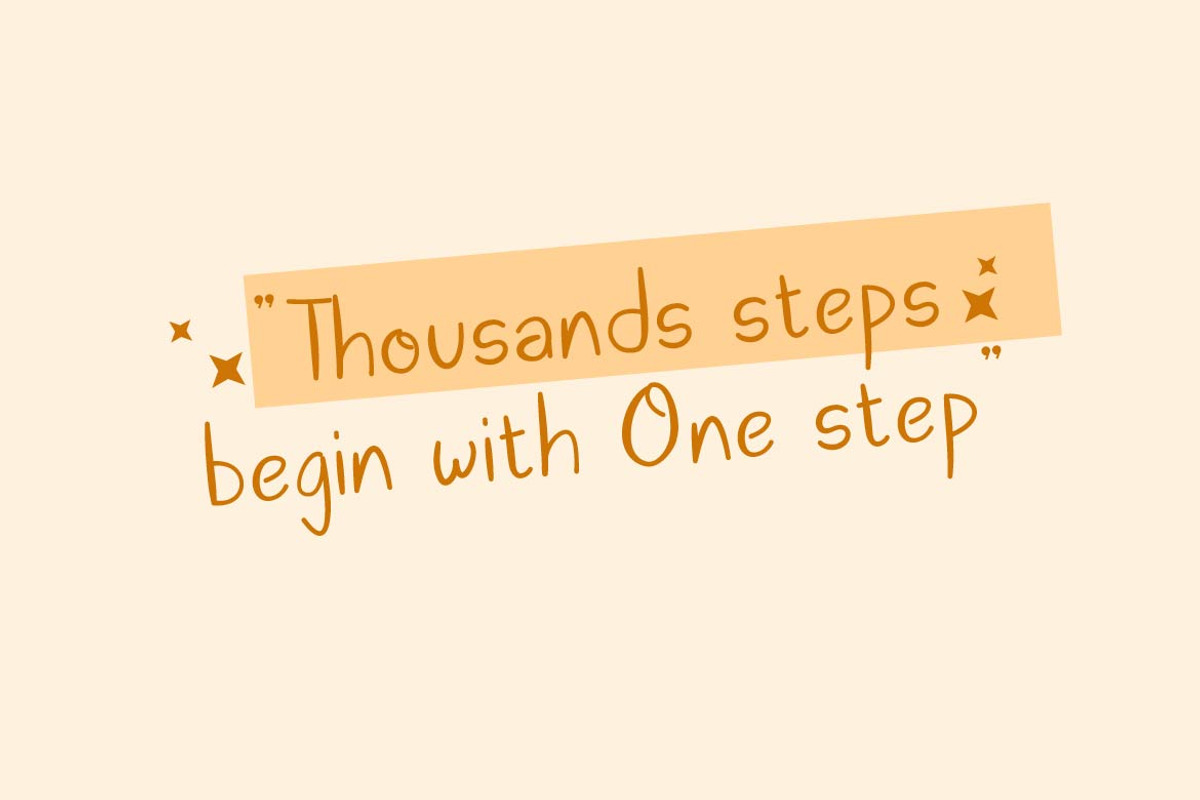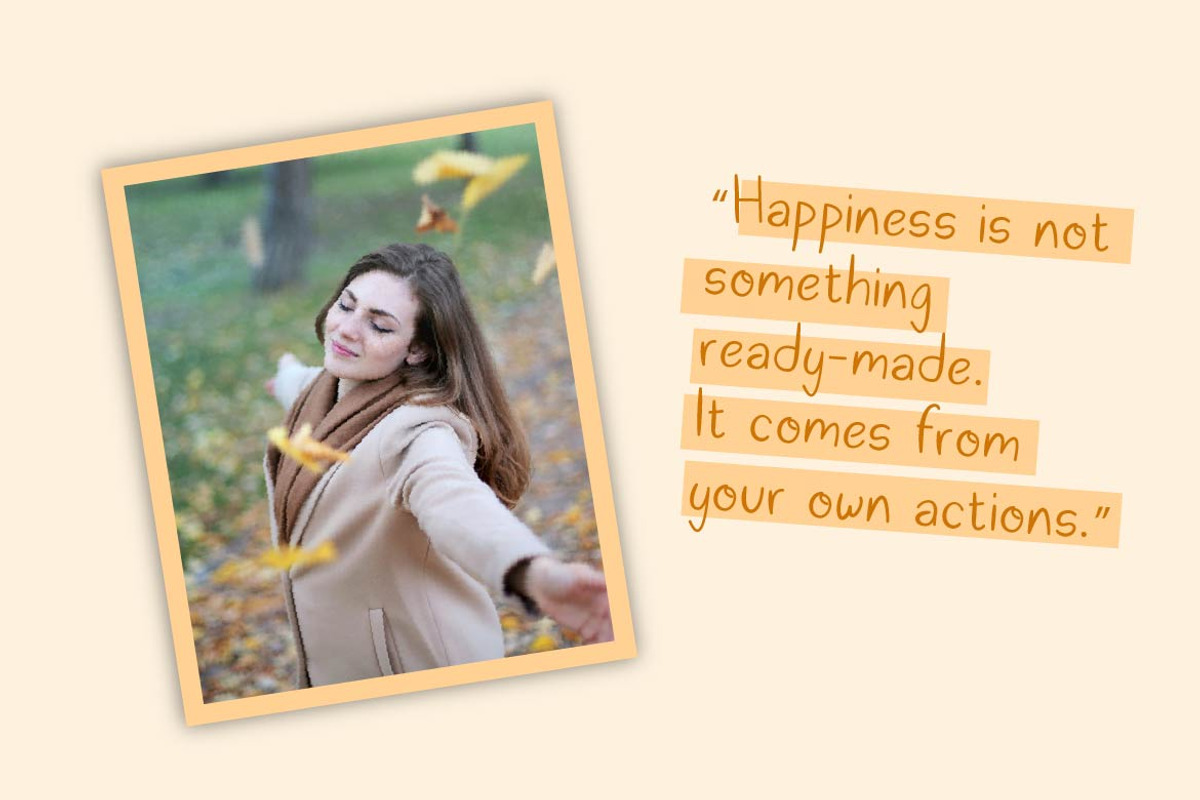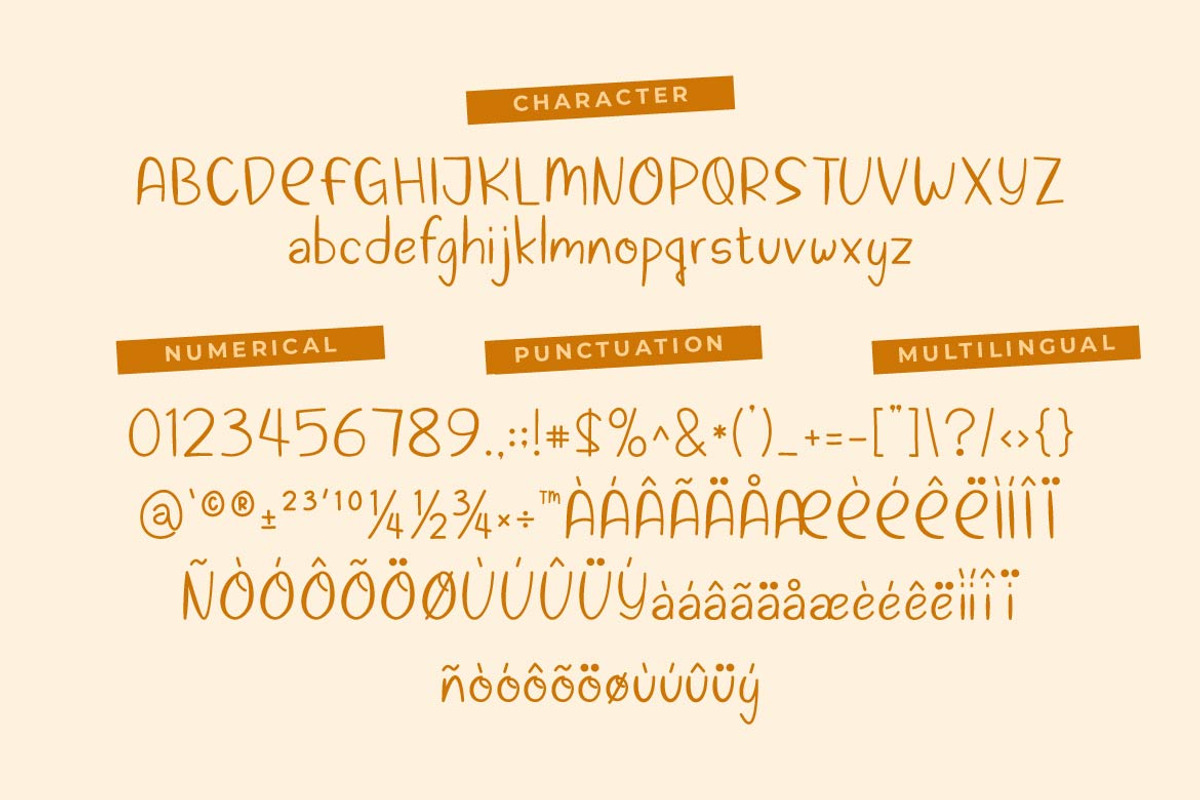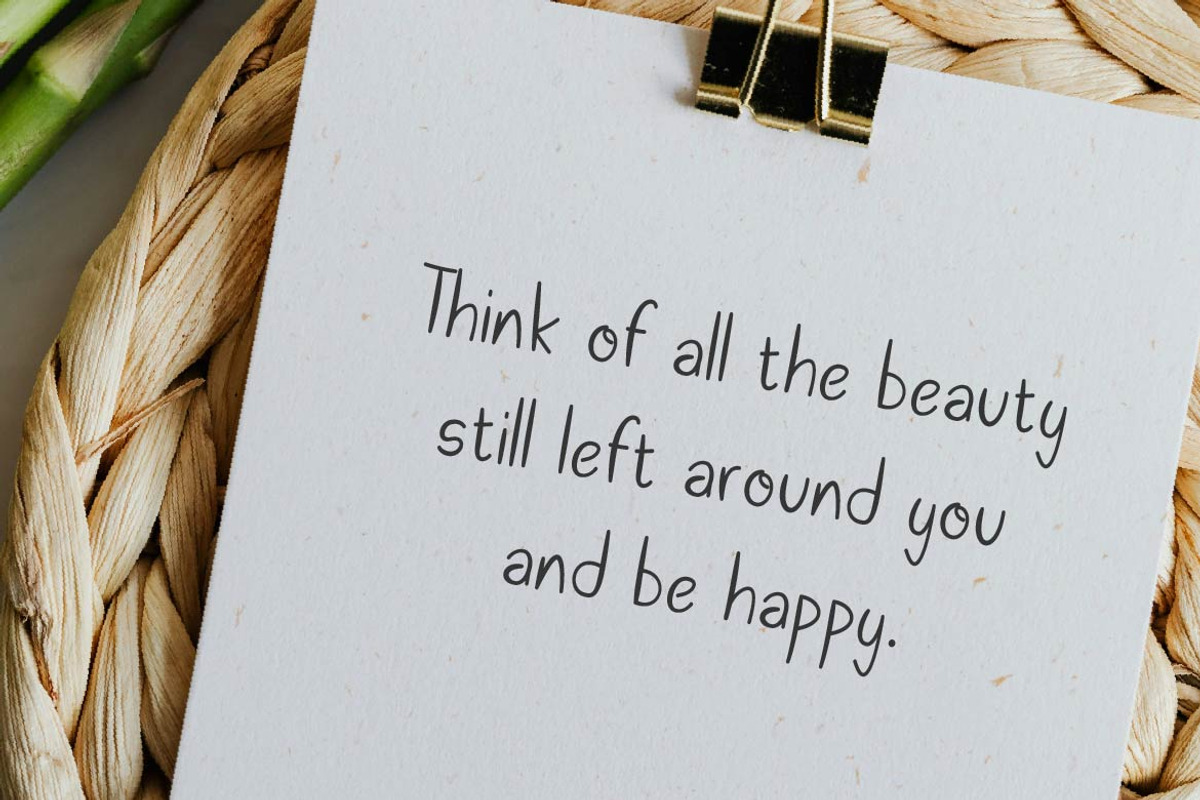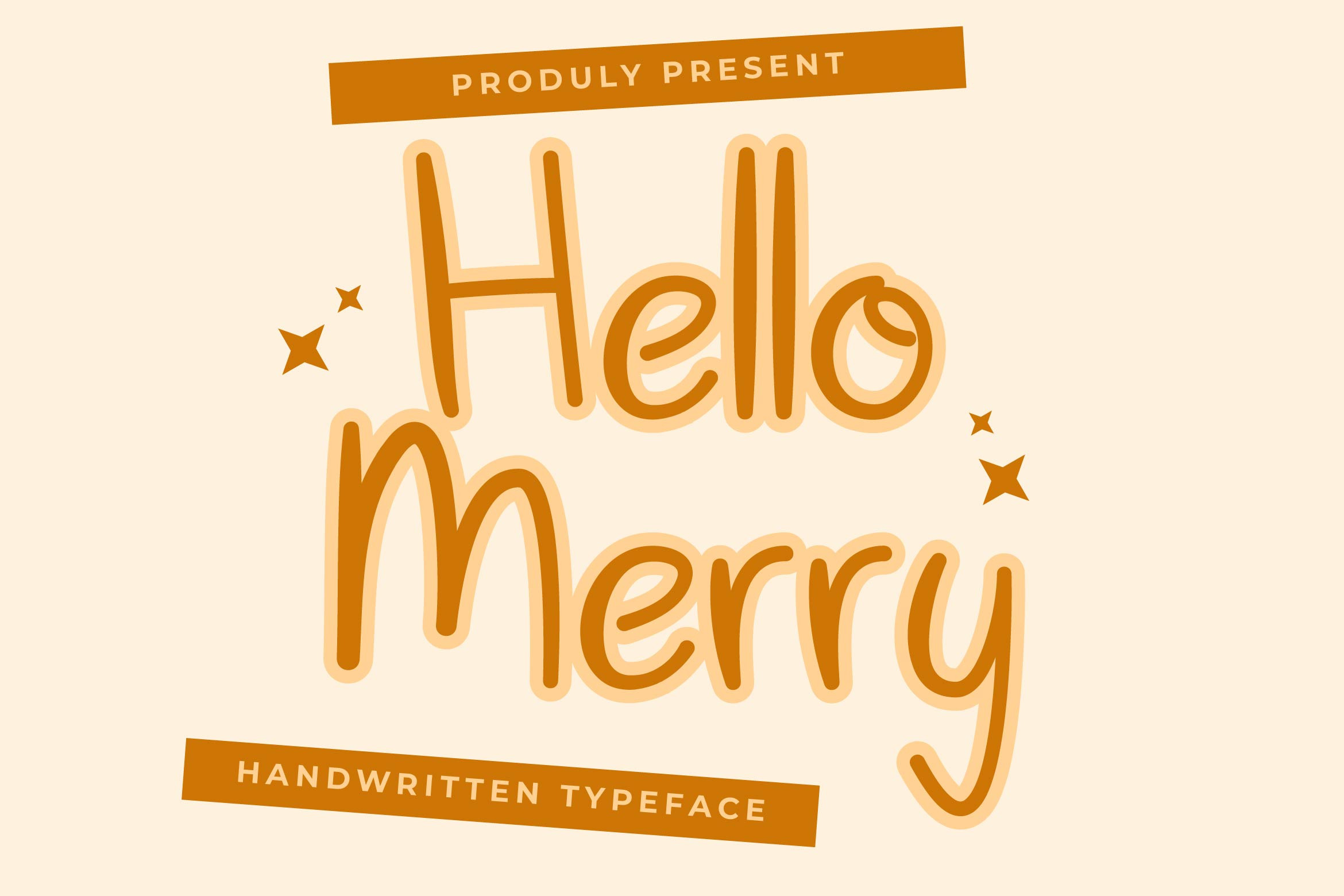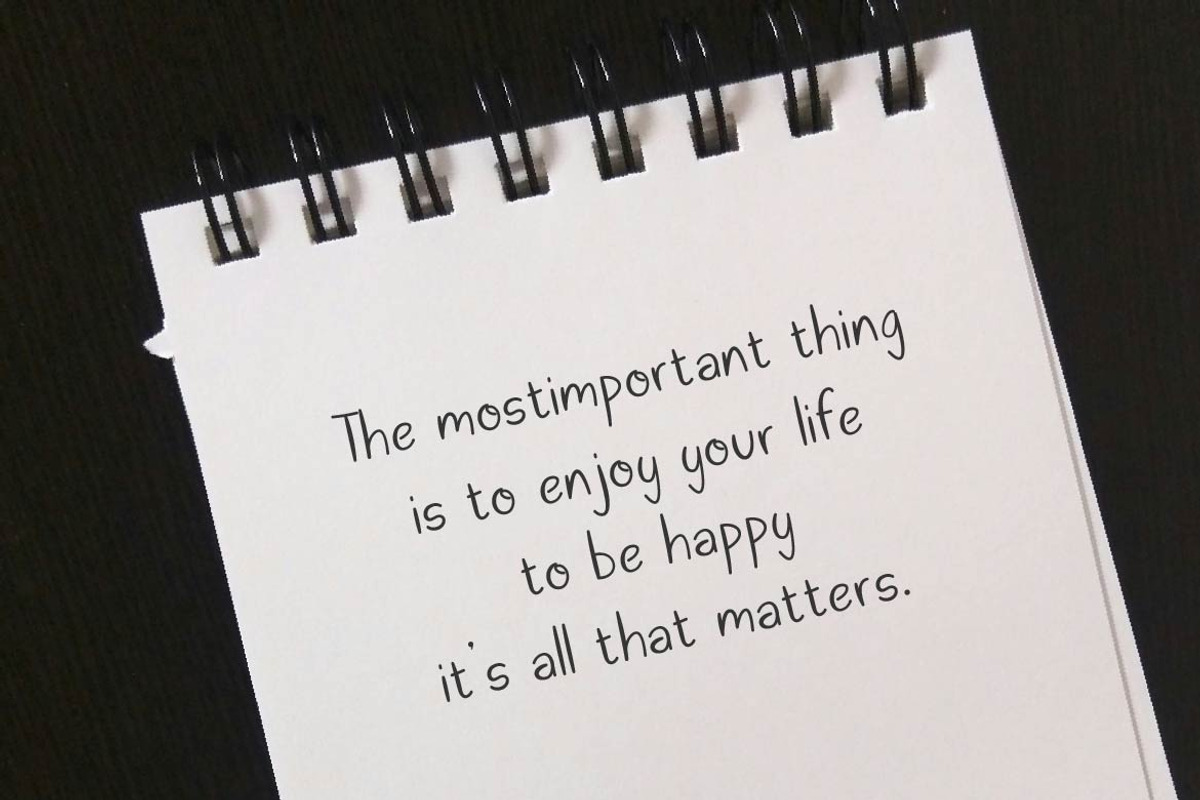
Hello Merry Handwritten Font
Hello Merry is a delightful handwritten font that brings joy, warmth, and personality to every design. With bouncy curves, smooth strokes, and an organic flow, this font feels like a handwritten note from a dear friend — playful, friendly, and full of heart. It’s perfect for greeting cards, quotes, invitations, social media content, kids branding, and cheerful packaging.